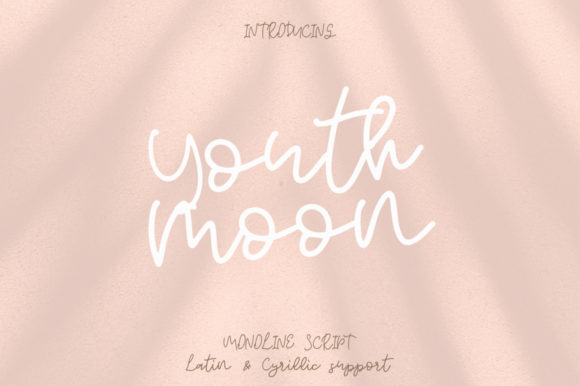
Journey into a realm of visual delight, where letters dance with grace and charm, and words transform into captivating expressions of art. Introducing Youth Moon Font, a script font family that embodies elegance and timeless beauty, meticulously crafted by the talented Katie Holland.
Immerse yourself in the world of Cyrillic typography, where Youth Moon Font reigns supreme. Its meticulously designed characters, imbued with a touch of whimsy and sophistication, bring a unique charm to any design project. Whether you're a seasoned designer or just starting your creative journey, Youth Moon Font is the perfect companion for your artistic endeavors.
With Youth Moon Font, your designs will blossom into captivating masterpieces. Its flowing lines and delicate curves add a touch of magic to logos, branding, and quotes, transforming them into works of art that speak to the soul. Each letter is a meticulously crafted gem, adorned with unique and beautiful touches that bring your designs to life.
Experience the allure of Youth Moon Font, the font that captures the essence of handwritten elegance and timeless beauty. Its versatility knows no bounds, adapting seamlessly to a myriad of design styles and projects. From whimsical invitations to heartfelt greeting cards, from stunning posters to captivating social media graphics, Youth Moon Font elevates your creations to new heights of visual artistry.
Unleash your creativity and let Youth Moon Font guide you towards design greatness. Its enchanting characters will captivate your audience, leaving a lasting impression that lingers long after the page is turned. Embrace the power of Youth Moon Font and embark on a journey of visual storytelling, where every word becomes a masterpiece.